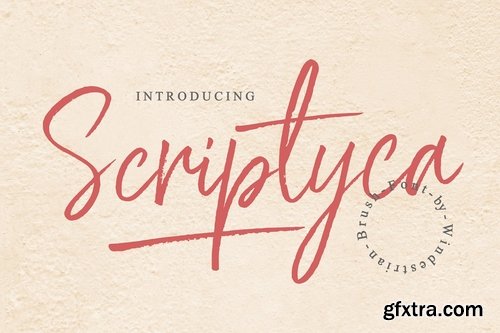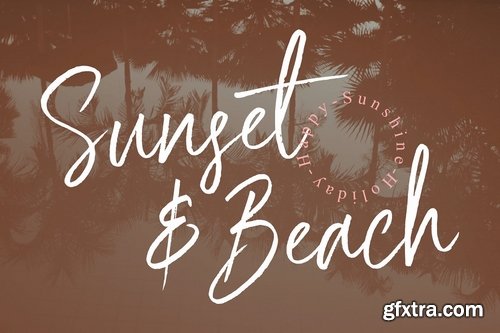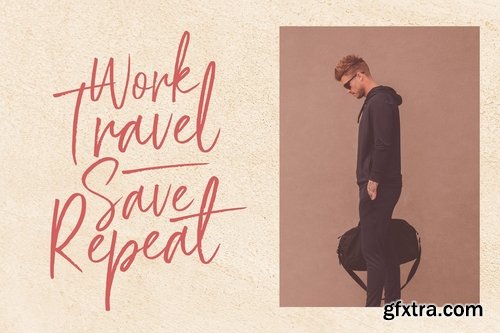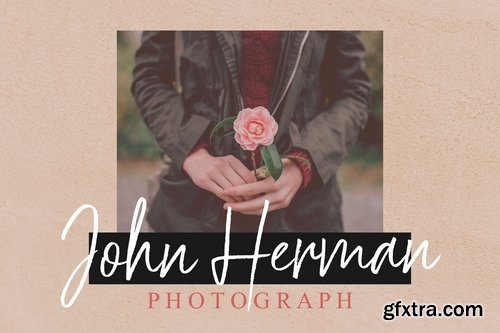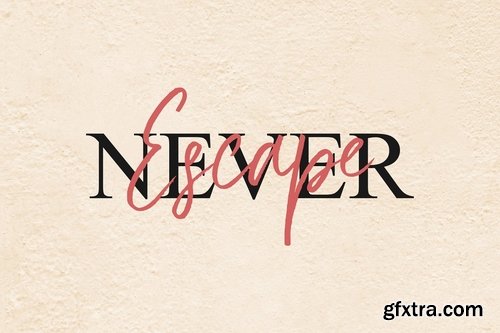
This is my first handwritten font. That's simple, bouncy and cool. Scriptyca can be incorporated into many designs including quotes text, wedding invitations, posters and you can create custom cards to give to your friends and family.